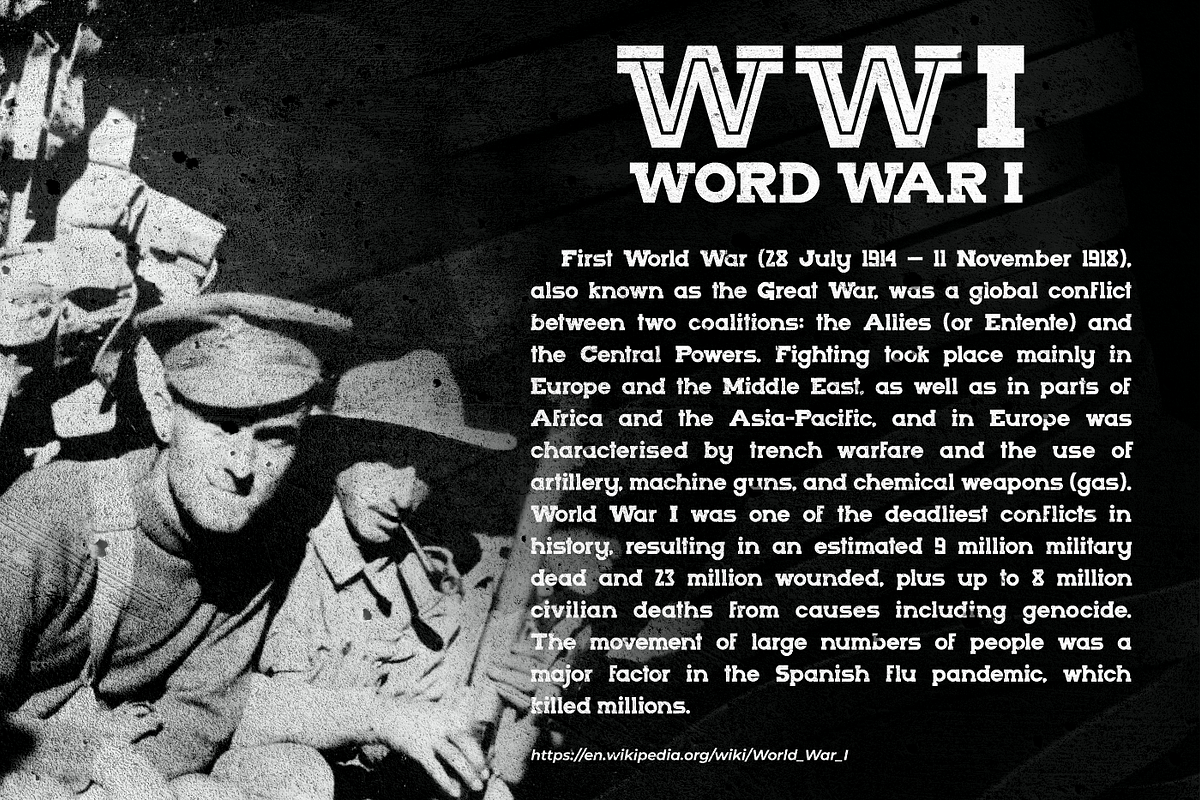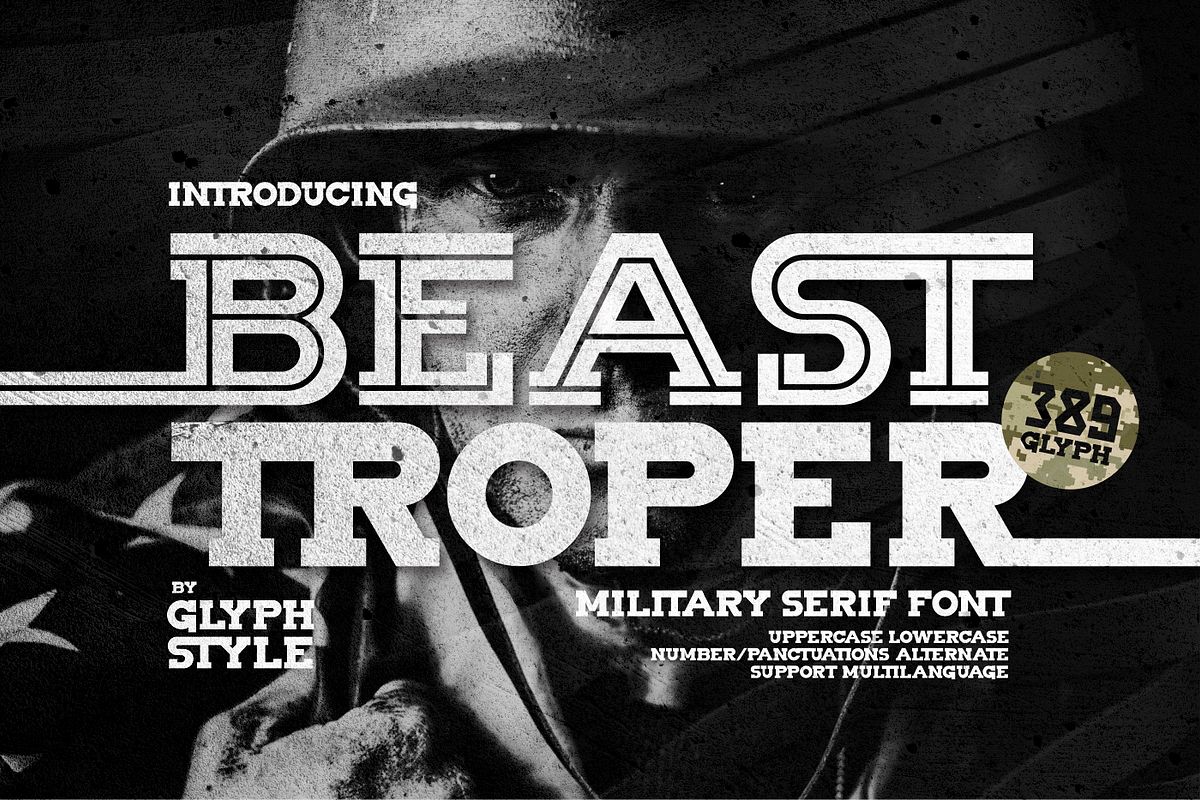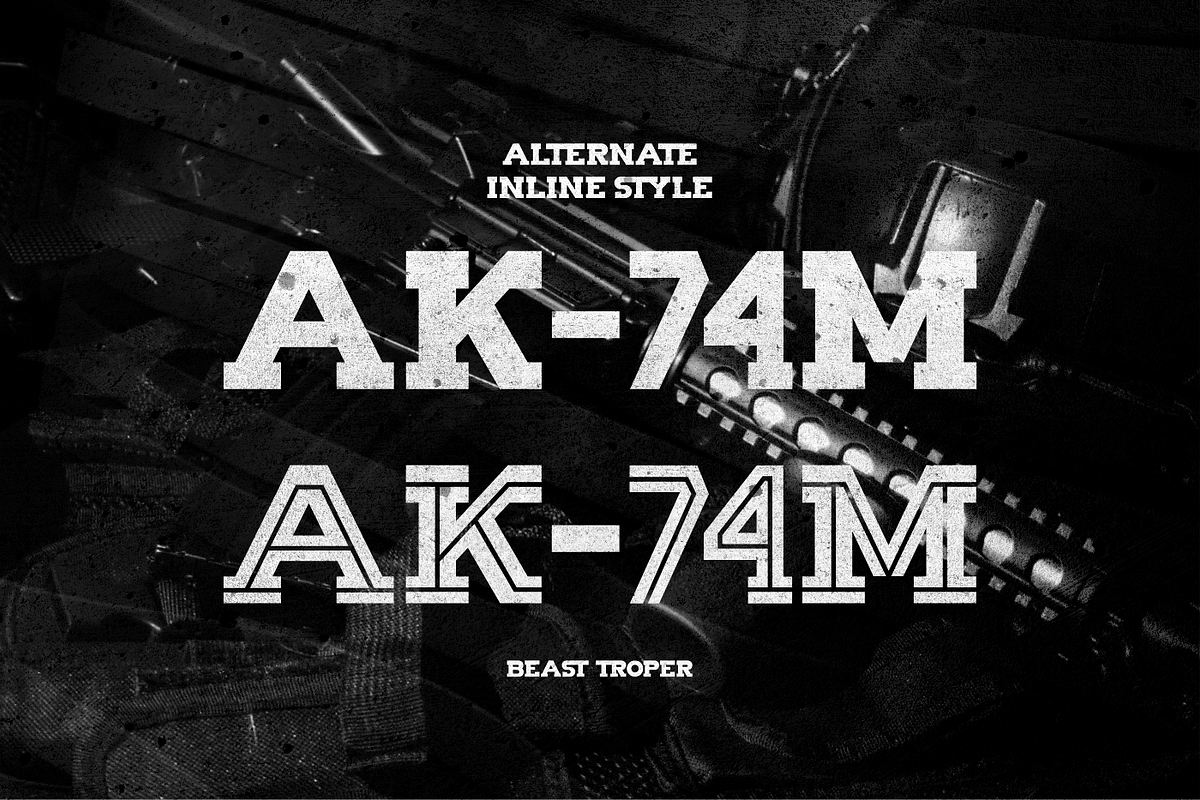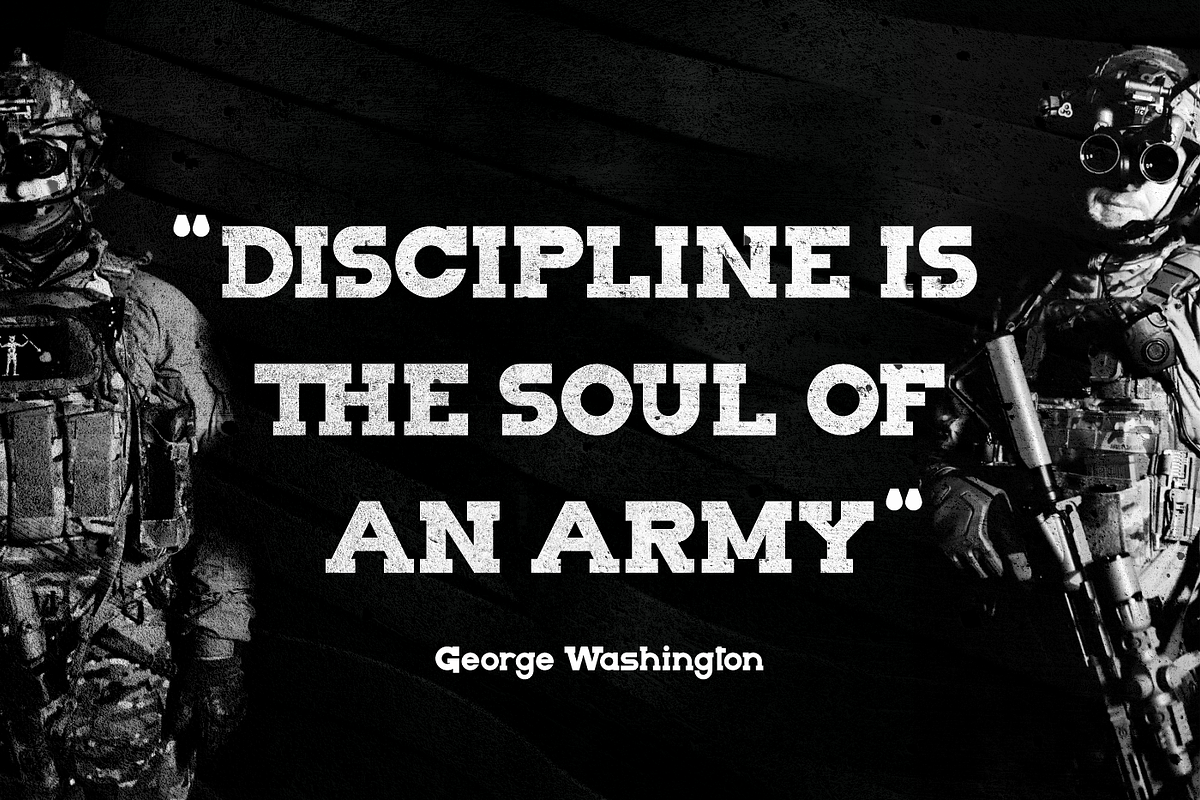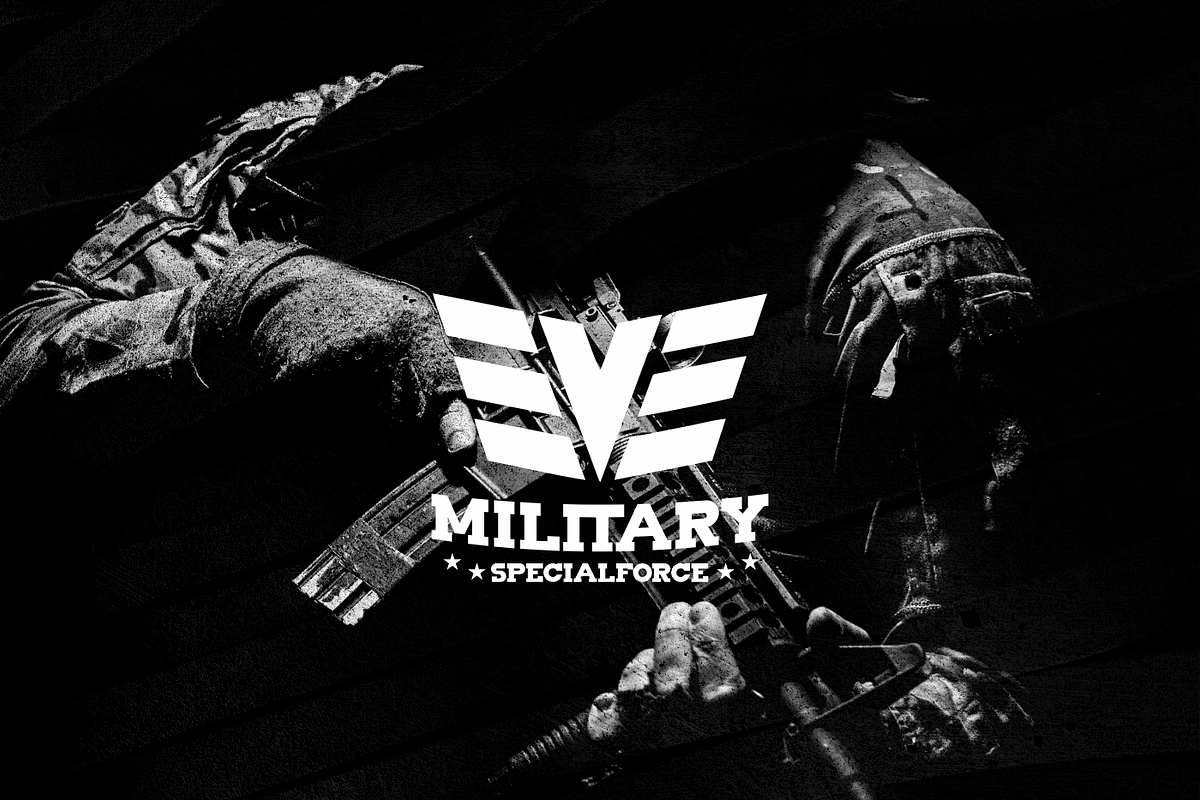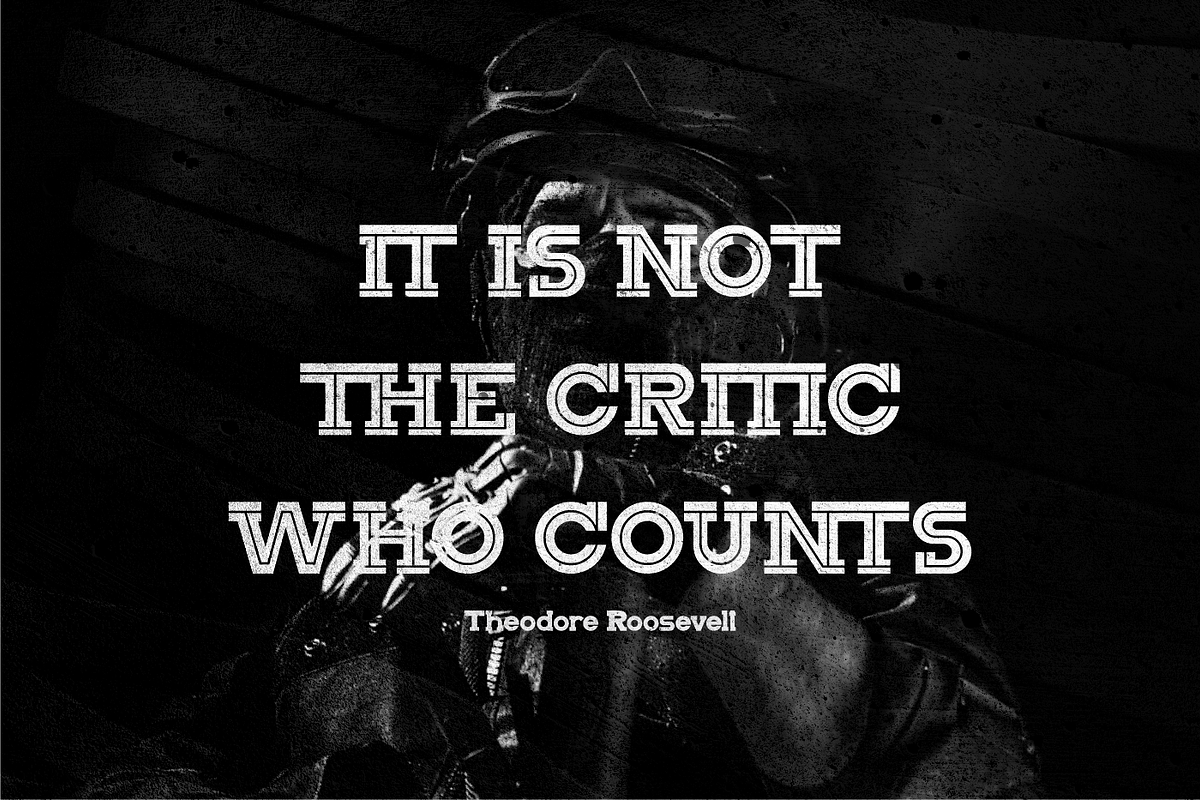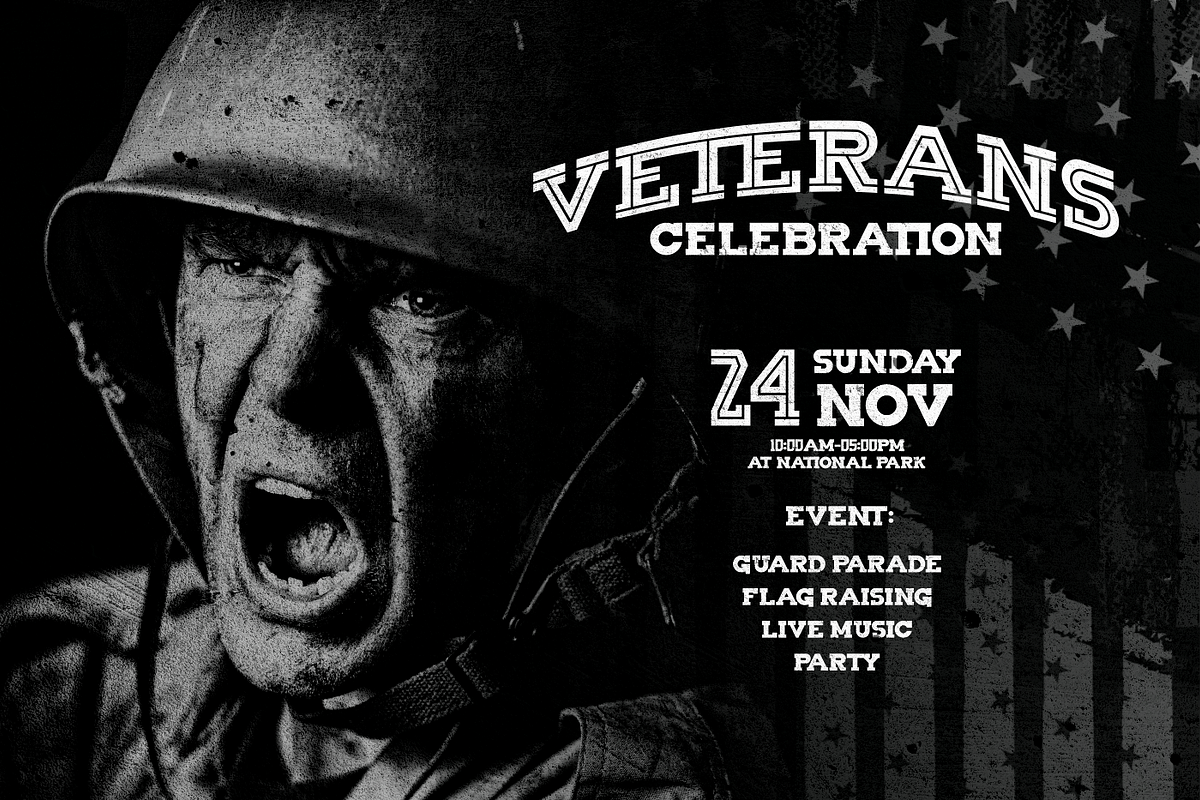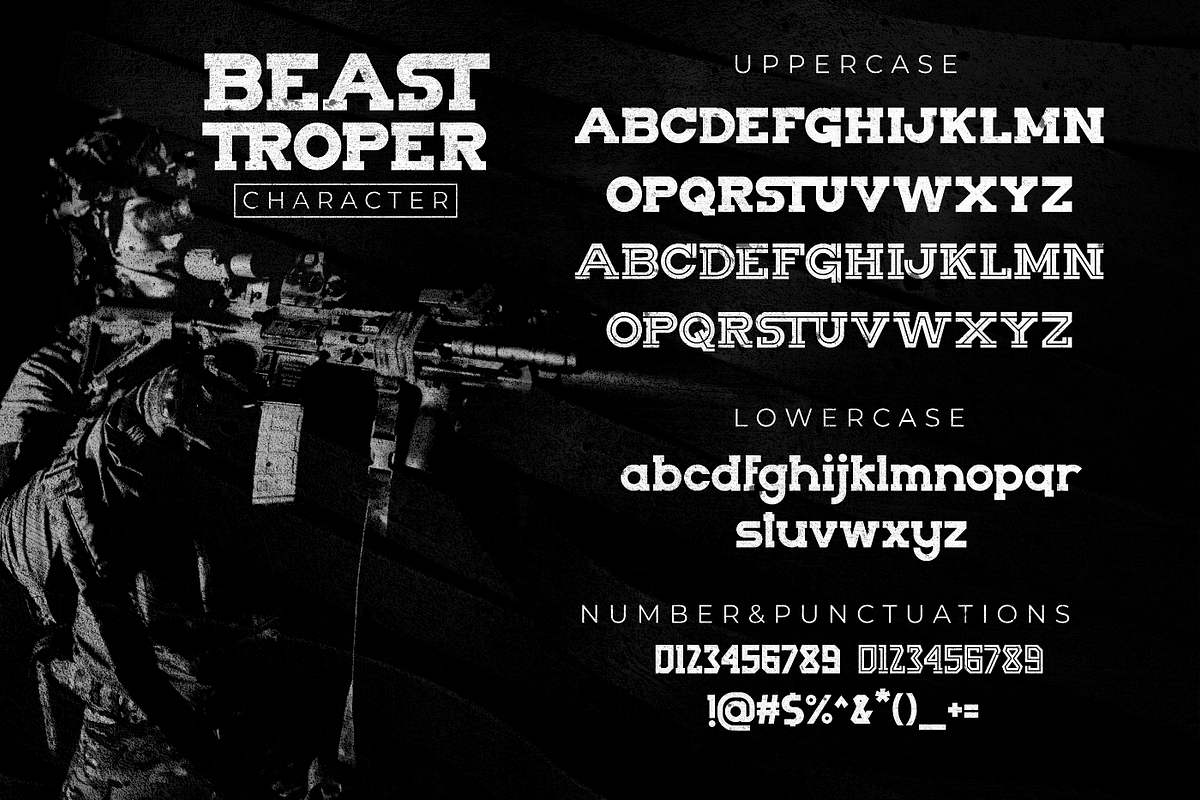
Beast Troper Military Serif
Beast Troper is a serif display font, with a military theme. It has a bold letterform. Available in 2 styles, inline and regular or solid
Beast Troper is perfect for branding projects, logos, wedding designs, social media posts, advertisements, product packaging, product designs, labels, photography, watermarks, invitations, stationery, and any project that requires a military/army themed.
Font feature
Uppercase, Lowercase, Numerals & Punctuations, Alternate, Multilanguage